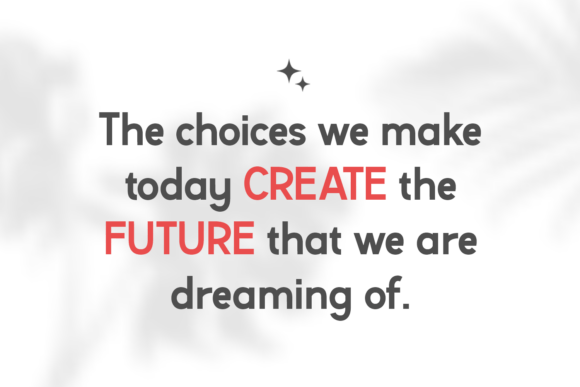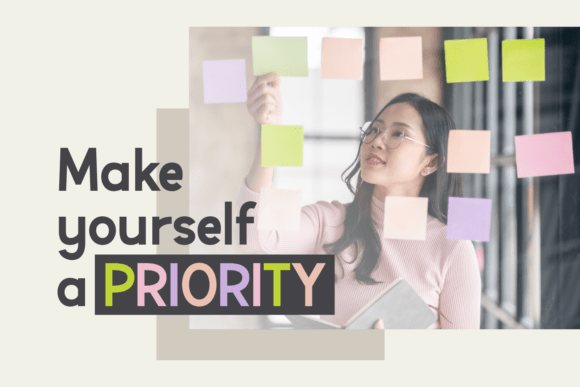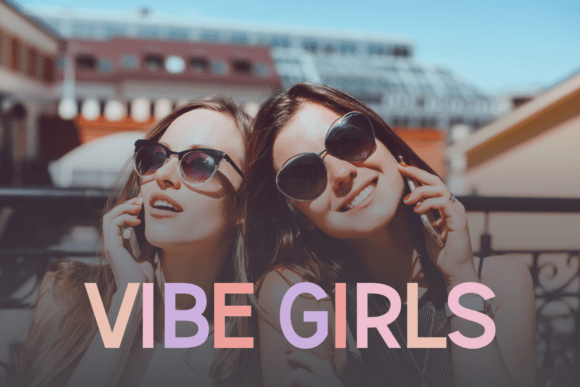
Introduction to Mango Friend Font
Mango Friend is a stunning sans serif font with a minimalistic shape.
Its clean and contemporary design is a great choice for any project that needs a professional touch It comes with multilingual support, so you can use this font to reach a global audience.
Key Features of Mango Friend Font
Why Choose Mango Friend Font?